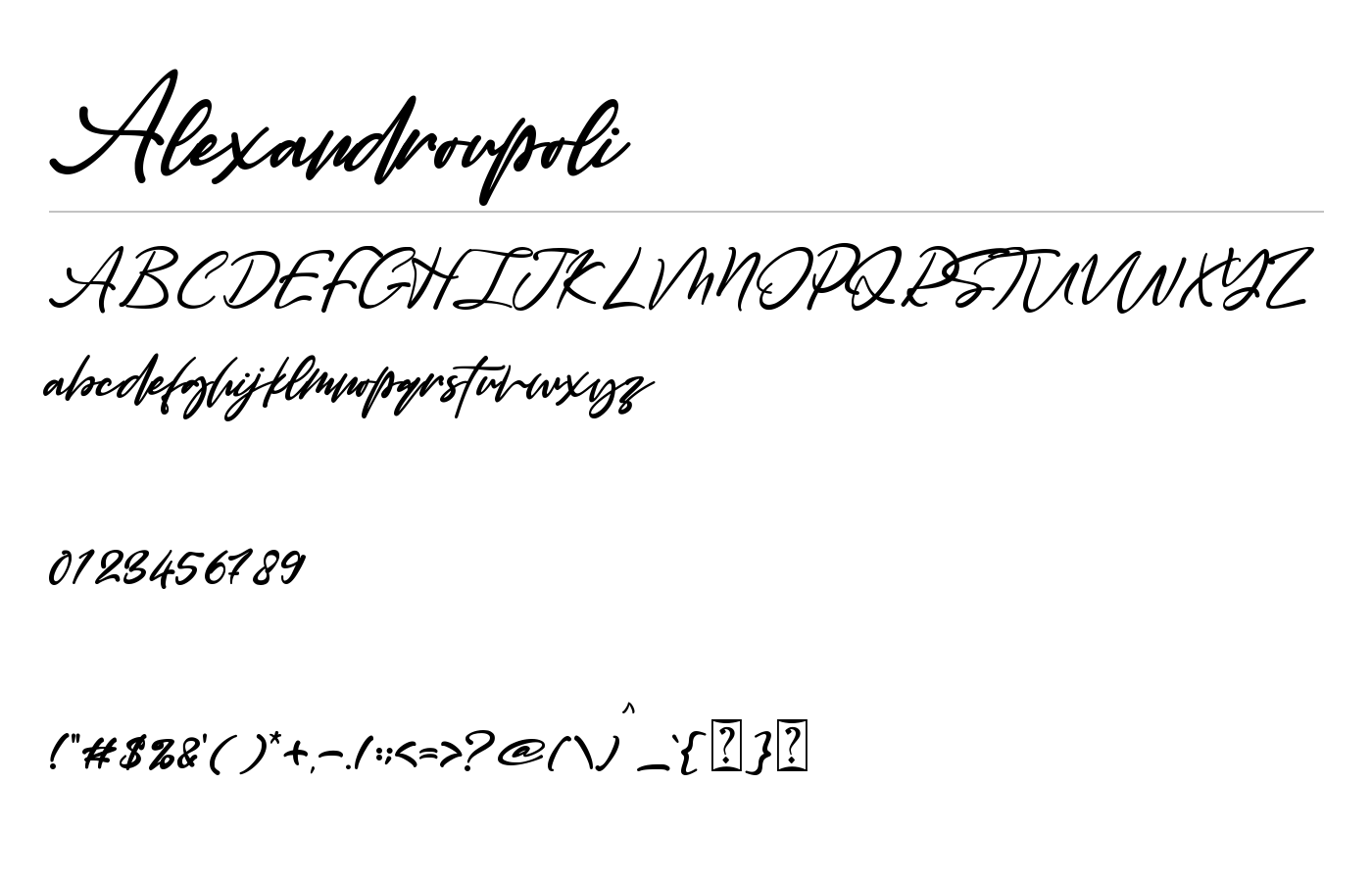
Alexandroupoli is an elegant script font with a natural, flowing style that mimics handwritten calligraphy. Its smooth, connected strokes and moderate contrast give it a sophisticated yet approachable feel, perfect for invitations, branding, and creative projects that seek a personal, refined touch. This font shines in designs where a graceful, stylish atmosphere is desired without sacrificing legibility.
Alexandroupoli Font
About Alexandroupoli Font